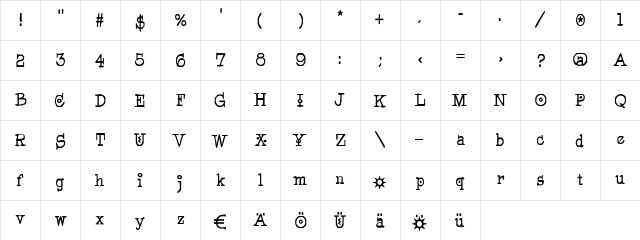
Pegyptienne Regular
Design Context for Pegyptienne Typeface
Pegyptienne offers clean, dependable letterforms without strong stylistic allegiance, making it a practical choice for designers who need flexibility.
Pro Tip: Use Pegyptienne in both headline and body roles to test its range before committing to a single application.